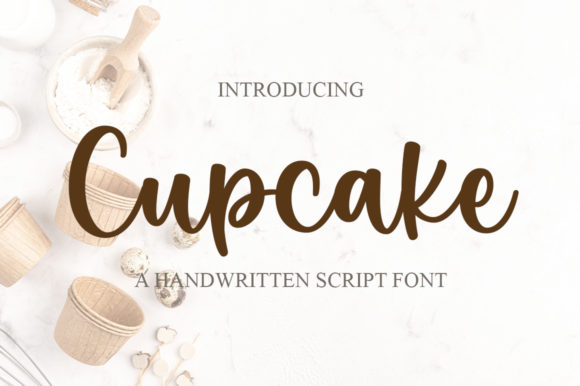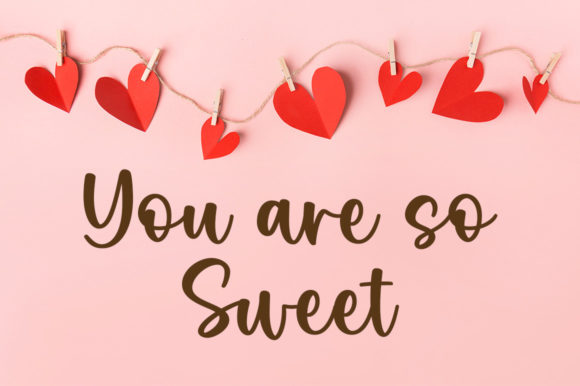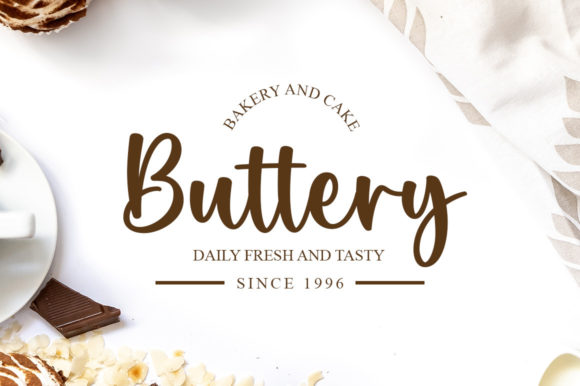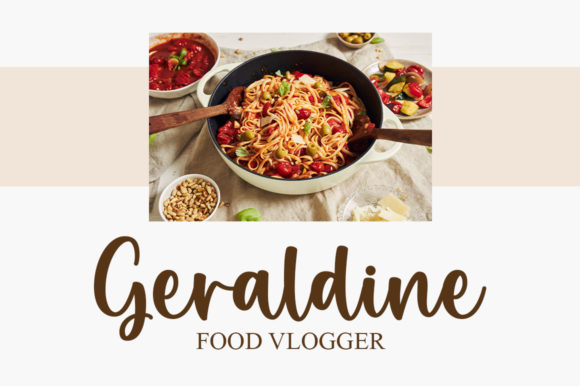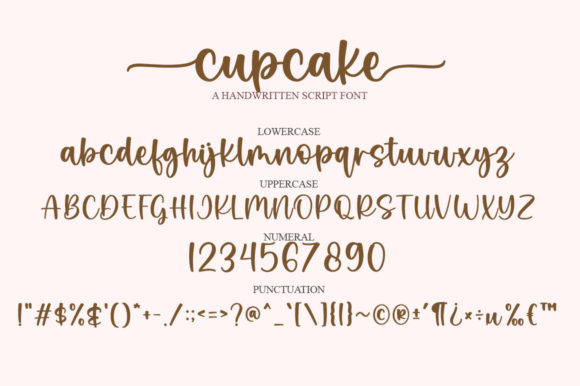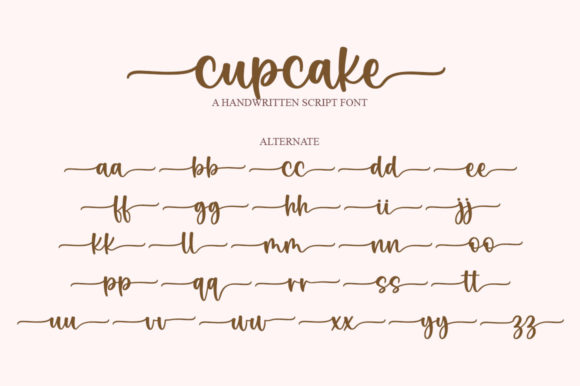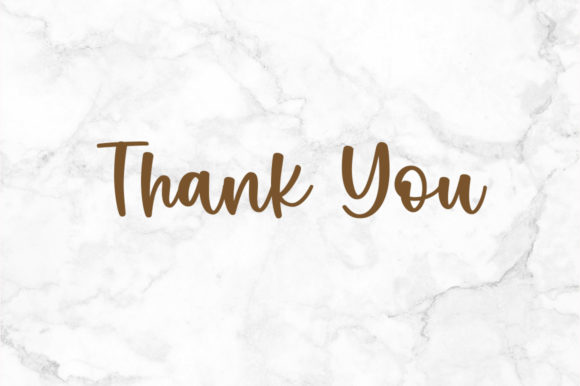
Cupcake Font
About Cupcake Font
Cupcake is a font that exudes a sense of finesse and intelligence, with a smart script style that effortlessly combines sophistication and elegance. Its refined design makes it a versatile choice for a wide range of creative projects, allowing you to infuse your work with a touch of class.
The font’s PUA encoding is a valuable feature that grants you easy access to a vast collection of glyphs and swashes. This functionality empowers you to experiment with various letterforms and decorative elements, enabling you to customize and enhance your designs to match your creative vision.
Cupcake’s versatile style lends itself well to a multitude of contexts. Whether you’re designing branding materials, crafting invitations, or working on any project that requires a refined and stylish typeface, Cupcake rises to the occasion. Its clean lines and well-crafted characters contribute to a sense of visual harmony, making it a font that can elevate your designs to new levels of sophistication.
With Cupcake, you have the opportunity to create truly spectacular designs that capture attention and leave a lasting impression. Whether you’re aiming to design logos, headlines, greeting cards, or any other visual content, the font’s smart script style offers a blend of charm and elegance that resonates with a discerning audience.
In conclusion, Cupcake is a font that effortlessly radiates sophistication and elegance, making it an excellent choice for a wide array of design projects. Its PUA encoding and versatile style provide you with the tools to create stunning and impactful visuals that stand out. As you explore the various possibilities that Cupcake offers, you’ll undoubtedly fall in love with its refined and stylish character, and you’ll find it to be an invaluable asset in your creative toolkit.